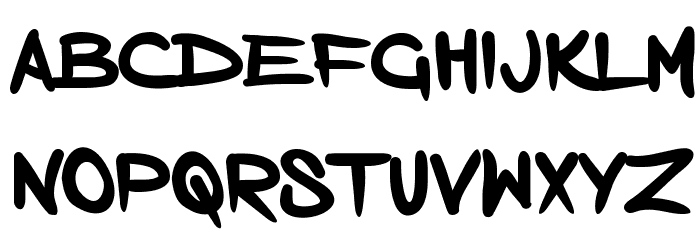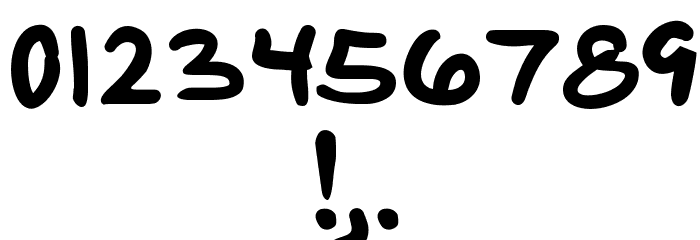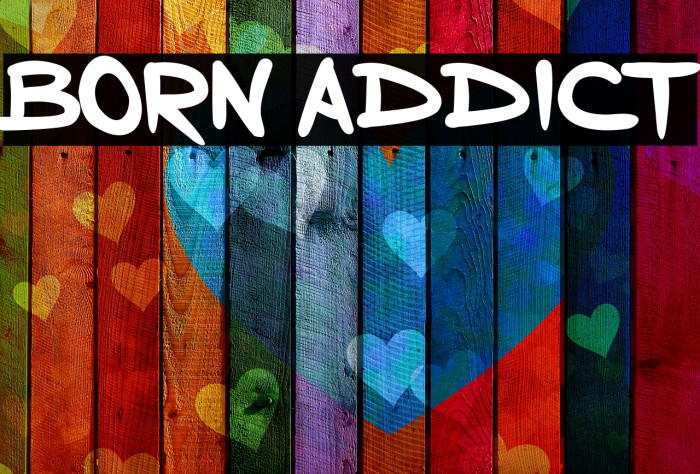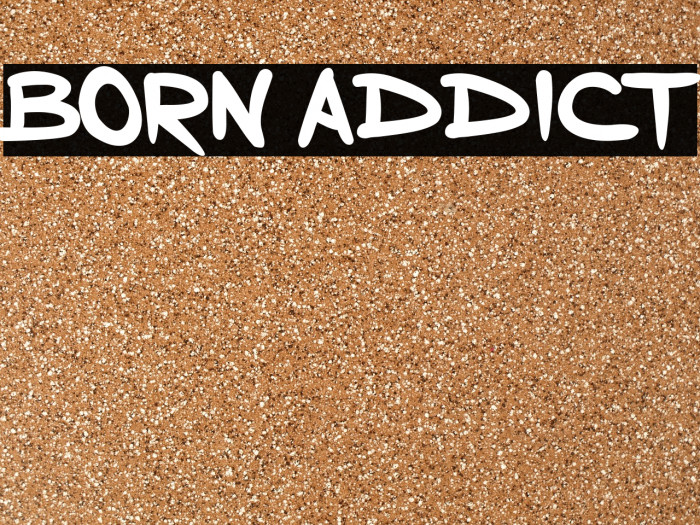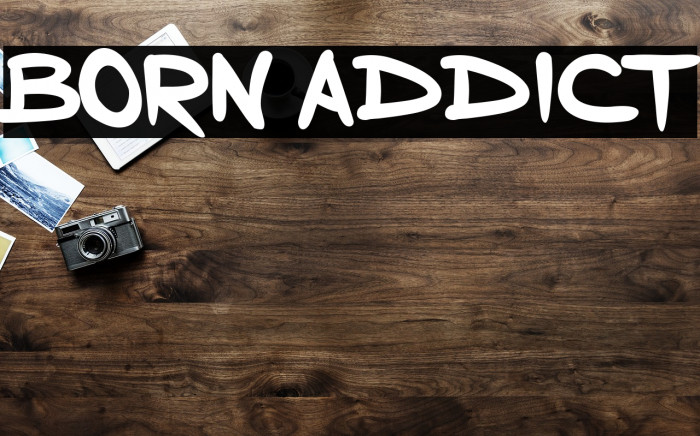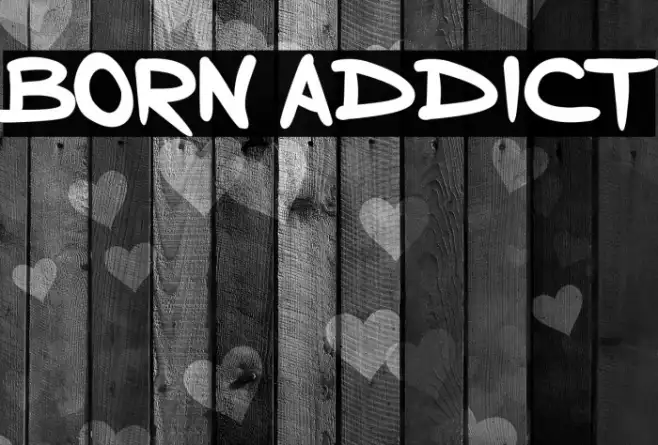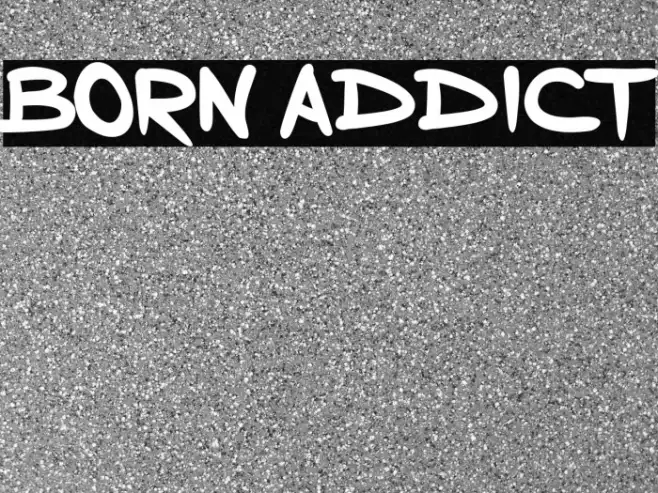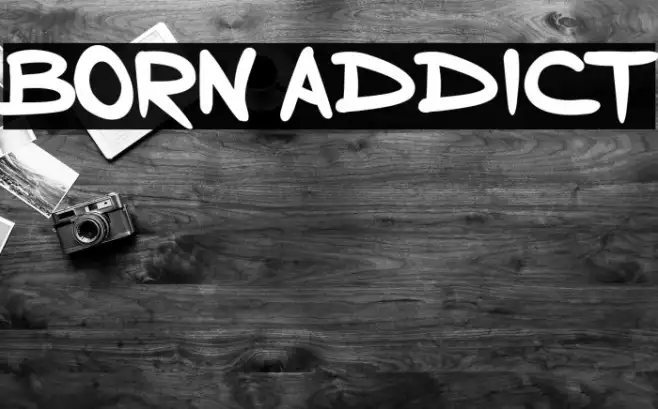
Born Addict Font
This font features a bold and playful style with a handwritten appearance. The characters are thick and rounded, giving them a friendly and approachable look. The uppercase and lowercase letters maintain a consistent flow, with slightly exaggerated curves and a casual, informal vibe. The numbers and special characters follow the same design principles, ensuring uniformity across the font. Its bold strokes and smooth lines make it highly legible, even at smaller sizes. This font is perfect for projects that require a fun and energetic touch.
A bold, playful handwritten font with rounded, friendly characters.
- Proposed Projects: Ideal for children's books, comic strips, playful branding, and casual invitations.
- Category: Handwritten
- Overall Style: Playful